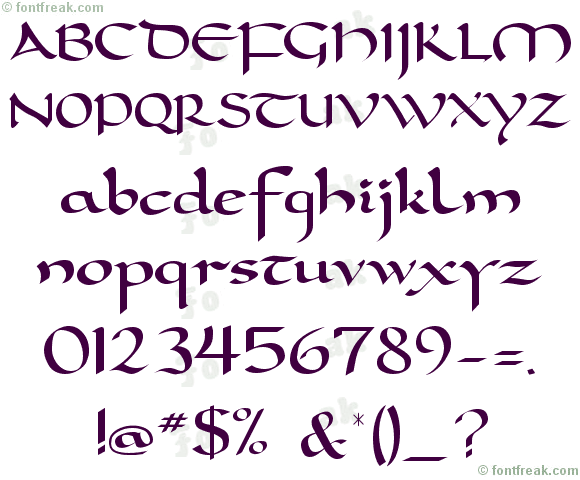
Carolingia
About Carolingia
Carolingia, designed by William Boyd, is a captivating display font that embodies an elegant serif style. With a graceful fusion of traditional and contemporary design elements, this typeface features moderate stroke weight and a sophisticated contrast that brings a sense of refinement to any project. The characters are well-spaced, ensuring readability while maintaining a visually appealing aesthetic. Decorative elements, including subtle flourishes and unique serifs, enhance its charm without overwhelming the design.
This font is particularly well-suited for a variety of creative applications. Its refined appearance makes it an excellent choice for wedding invitations, where elegance and sophistication are paramount. Carolingia also shines in movie posters, lending a dramatic flair that captures attention and sets the tone for cinematic storytelling. Additionally, restaurant menus benefit from its stylish presentation, enticing diners with a touch of class. Small business branding, particularly for boutique shops or artisanal products, can leverage Carolingia's unique character to create a memorable impression. Content creators will find it valuable for digital graphics, enhancing the visual appeal of social media posts and online content.
The target audience for Carolingia includes graphic designers seeking to add a distinctive touch to their projects, small business owners looking to establish a strong brand identity, and content creators aiming to elevate their visual storytelling.
What sets Carolingia apart is its ability to blend classic elegance with modern usability, making it a versatile choice for various design needs. With the Carolingia font free download, you can easily incorporate this beautiful typeface into your projects, allowing you to create striking visuals that resonate with your audience. Whether for print or digital media, Carolingia is sure to leave a lasting impression.